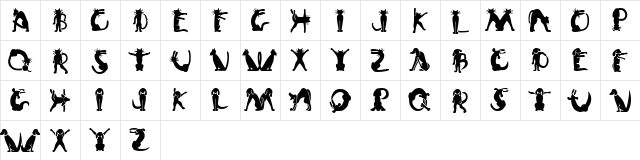
Scrap Cat n Dog Regular
Design Context for Scrap Cat n Dog Typeface
Scrap Cat n Dog is a composed and adaptable typeface that performs quietly and consistently across a wide range of design contexts.